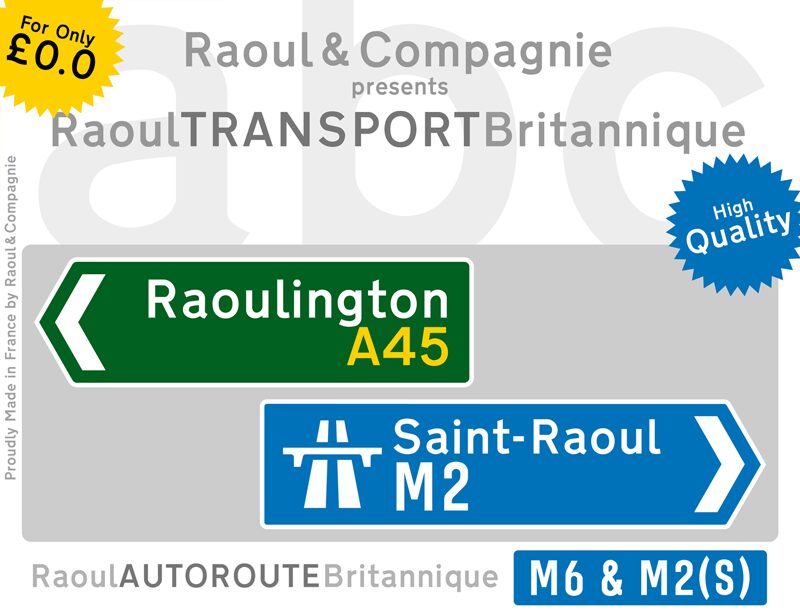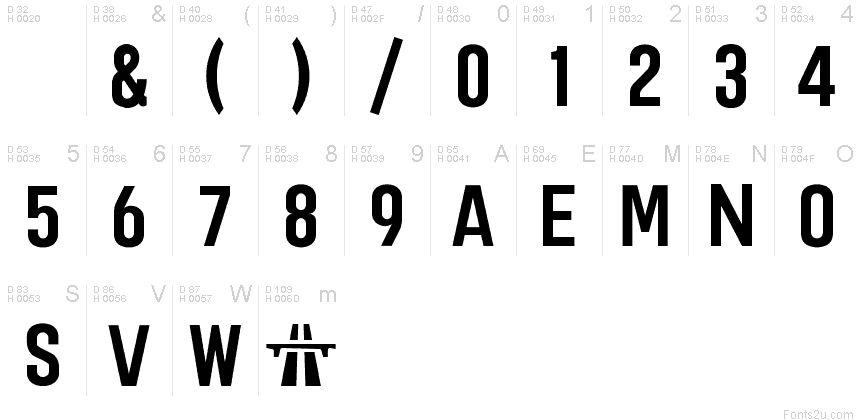
Raoul AUTOROUTE Britannique
Font used on British Road Signs
Police utilise pour la Signalisation Routire Britannique
Created with the original alphabet drawings available on the Department for Transport.co.uk website
Cre partir des dessins techniques originaux disponibles sur le site du Dpartement des Transports britannique.
Police utilise pour la Signalisation Routire Britannique
Created with the original alphabet drawings available on the Department for Transport.co.uk website
Cre partir des dessins techniques originaux disponibles sur le site du Dpartement des Transports britannique.
Font used in British Motorway Road Signs + Contains the "Motorway" Symbol - Police utilisée pour la Signalisation des Autoroutes Britanniques + Contient le symbole "Autoroute" PROUDLY MADE IN FRANCE by Raoul & Compagnie